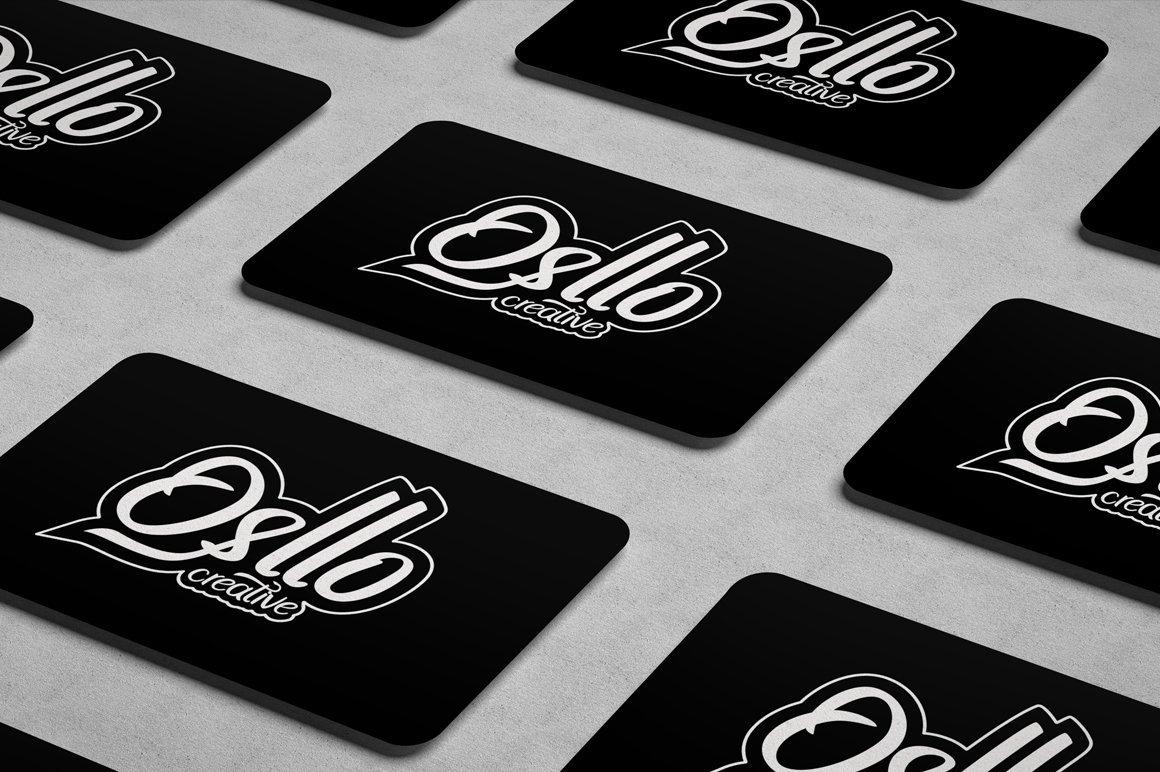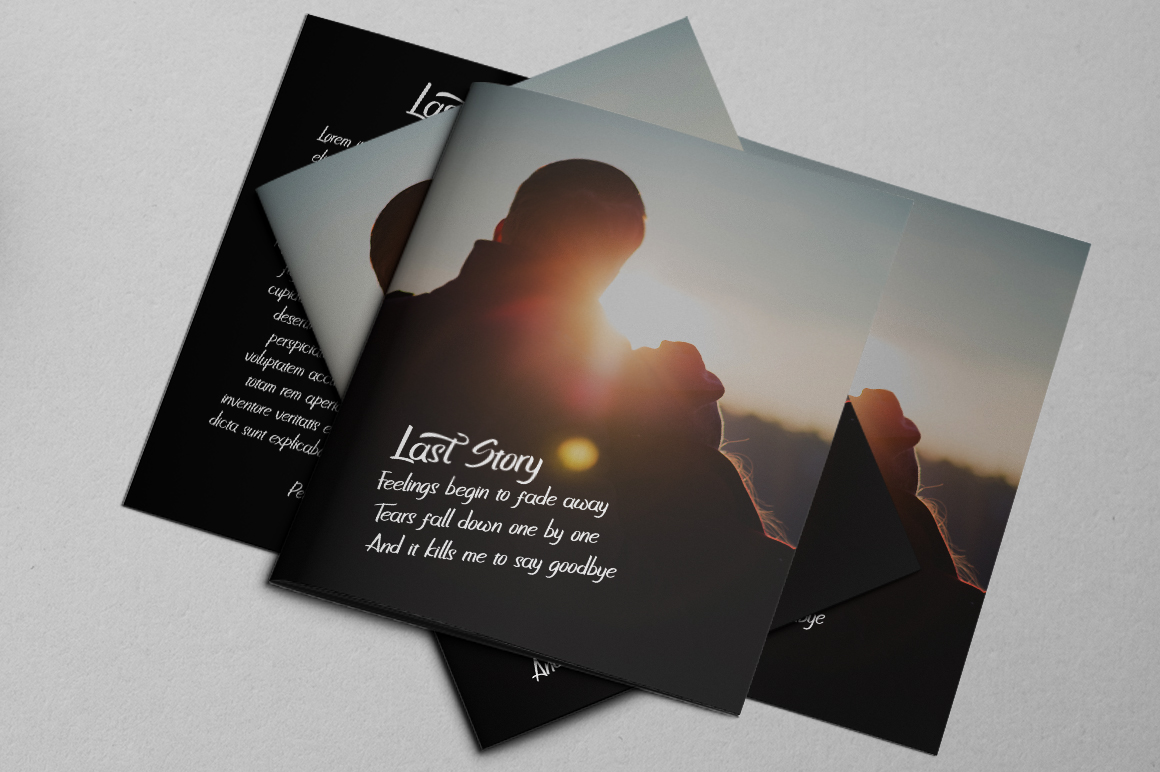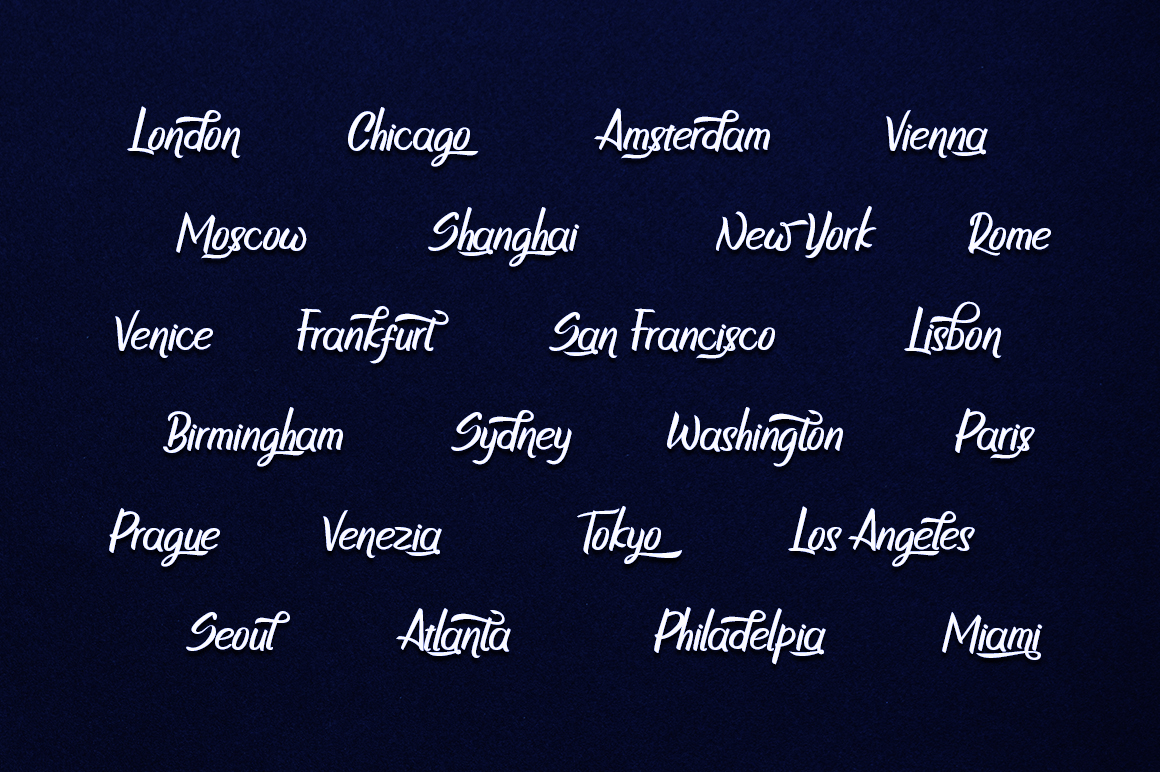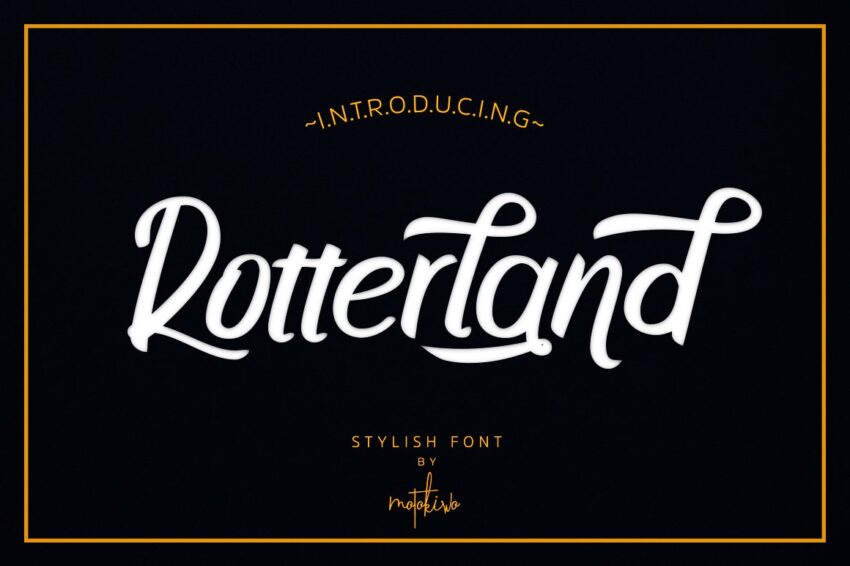
Introduction to Rotterland Font
Rotterland is a stylish brush lettered font, hand-made paint brush font with an urban, metropolitan style.
This is a painterly looking display font, and looks amazing across different design styles and project types .
Key Features of Rotterland Font